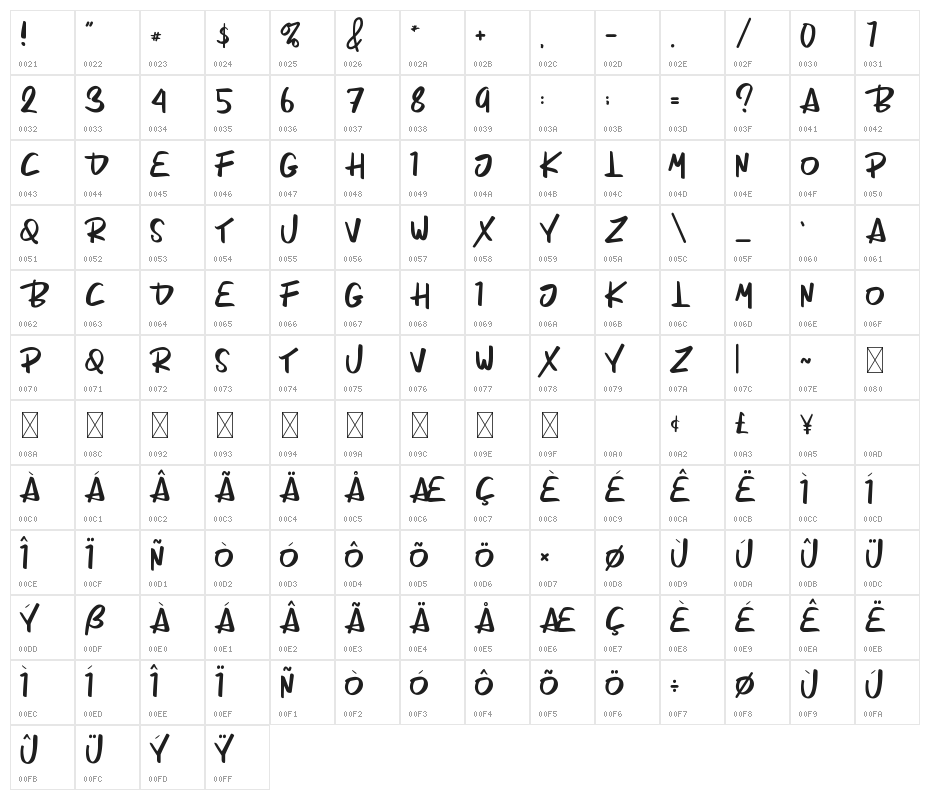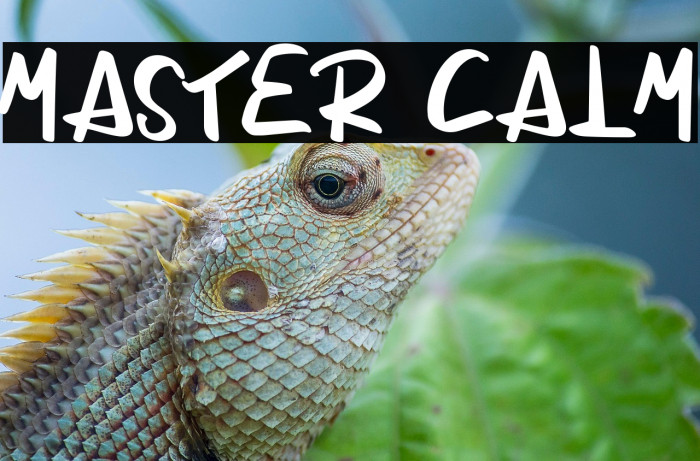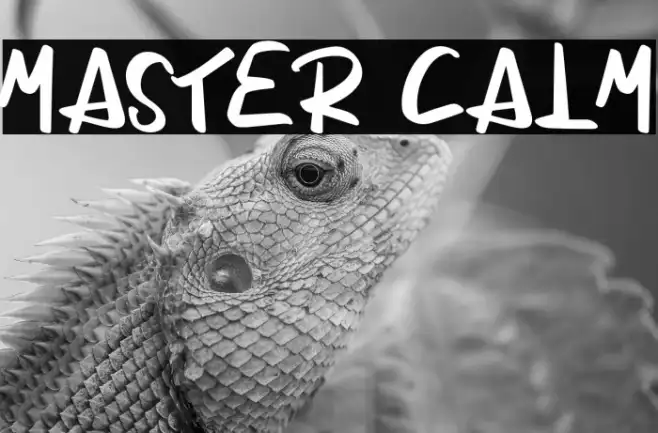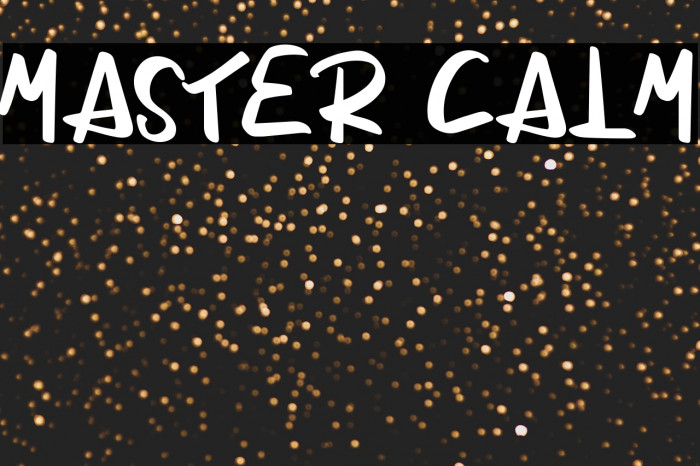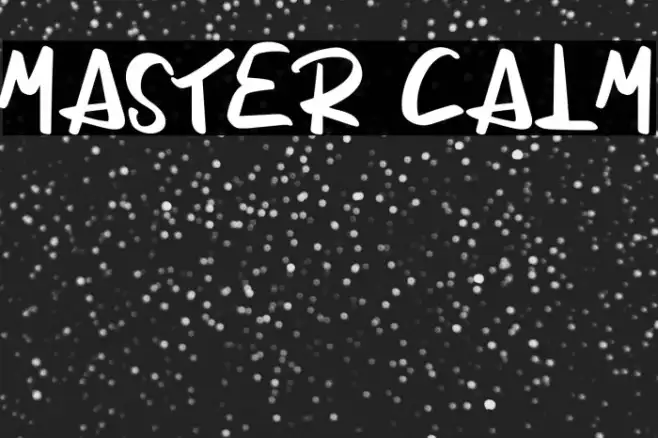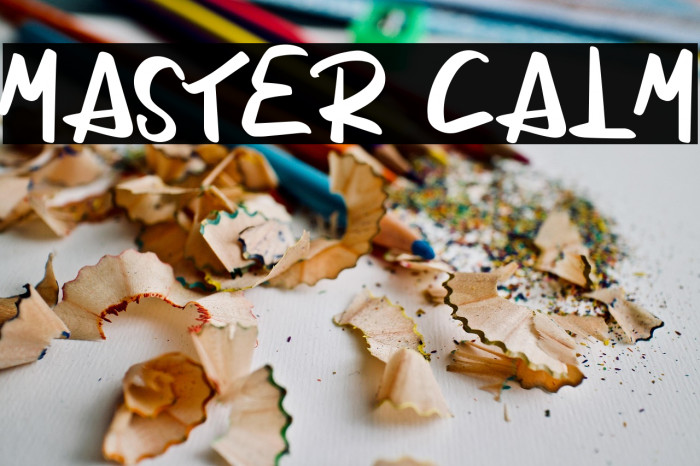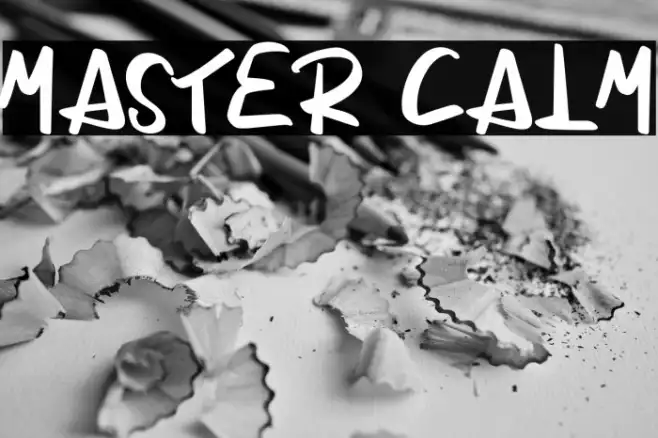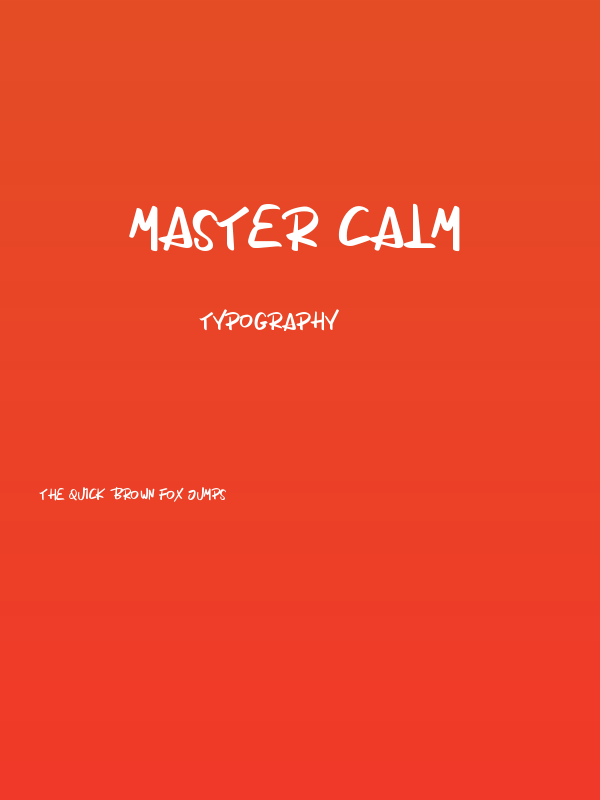
Master Calm Font
Master Calm Description
This font exudes a casual and playful handwritten style, characterized by its bold and dynamic strokes. The letters are slightly slanted, giving a sense of movement and energy. The uppercase and lowercase letters maintain a consistent style, with rounded edges and a slightly uneven baseline, adding to its informal charm. The numerals and special characters follow the same aesthetic, making them cohesive with the alphabet. This font is ideal for projects that require a personal touch or a lively, informal vibe.
| Use Case | Headlines, Logos, Informal Invitations |
| Proposed Projects | Ideal for greeting cards, playful branding, children's books, and social media graphics. |